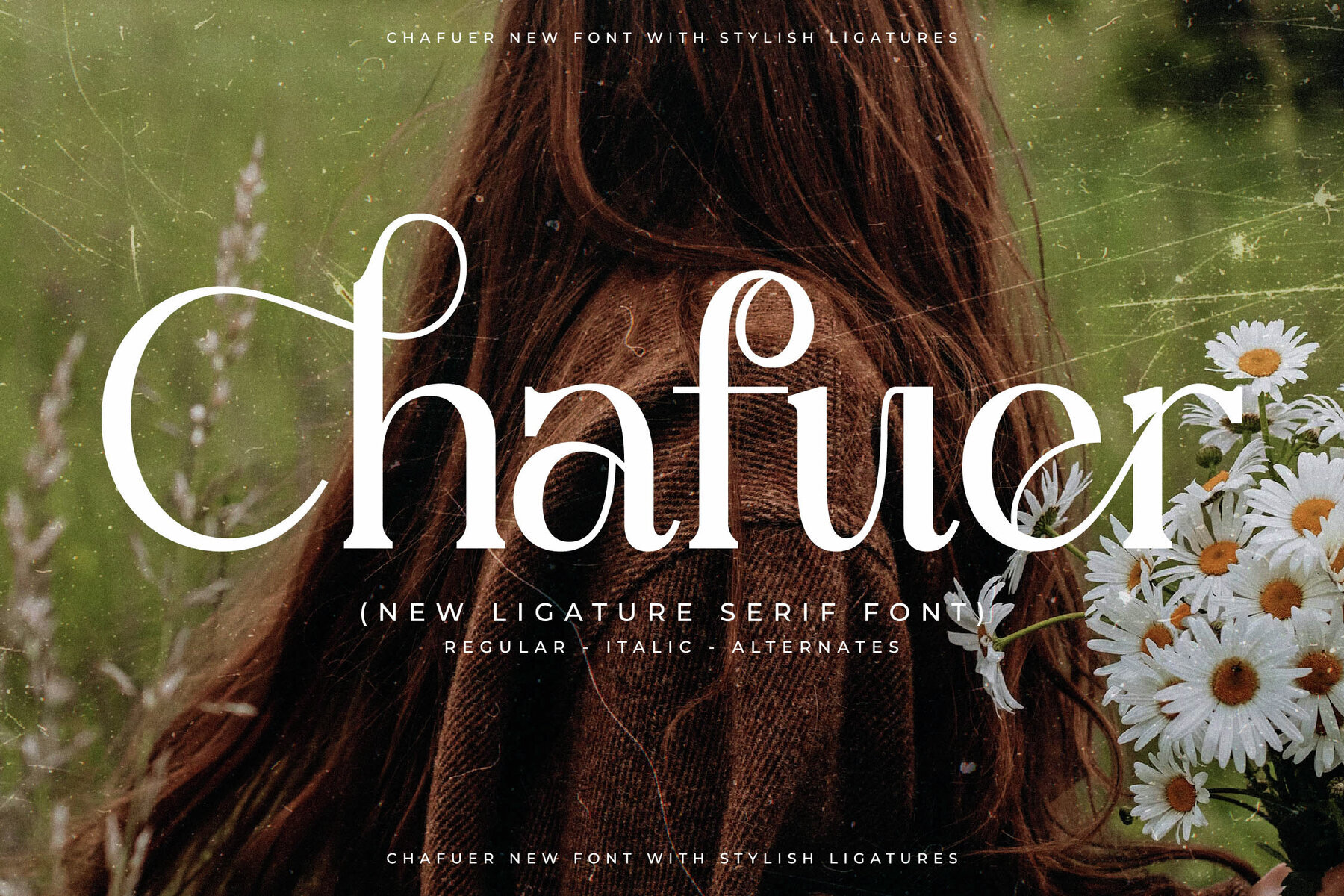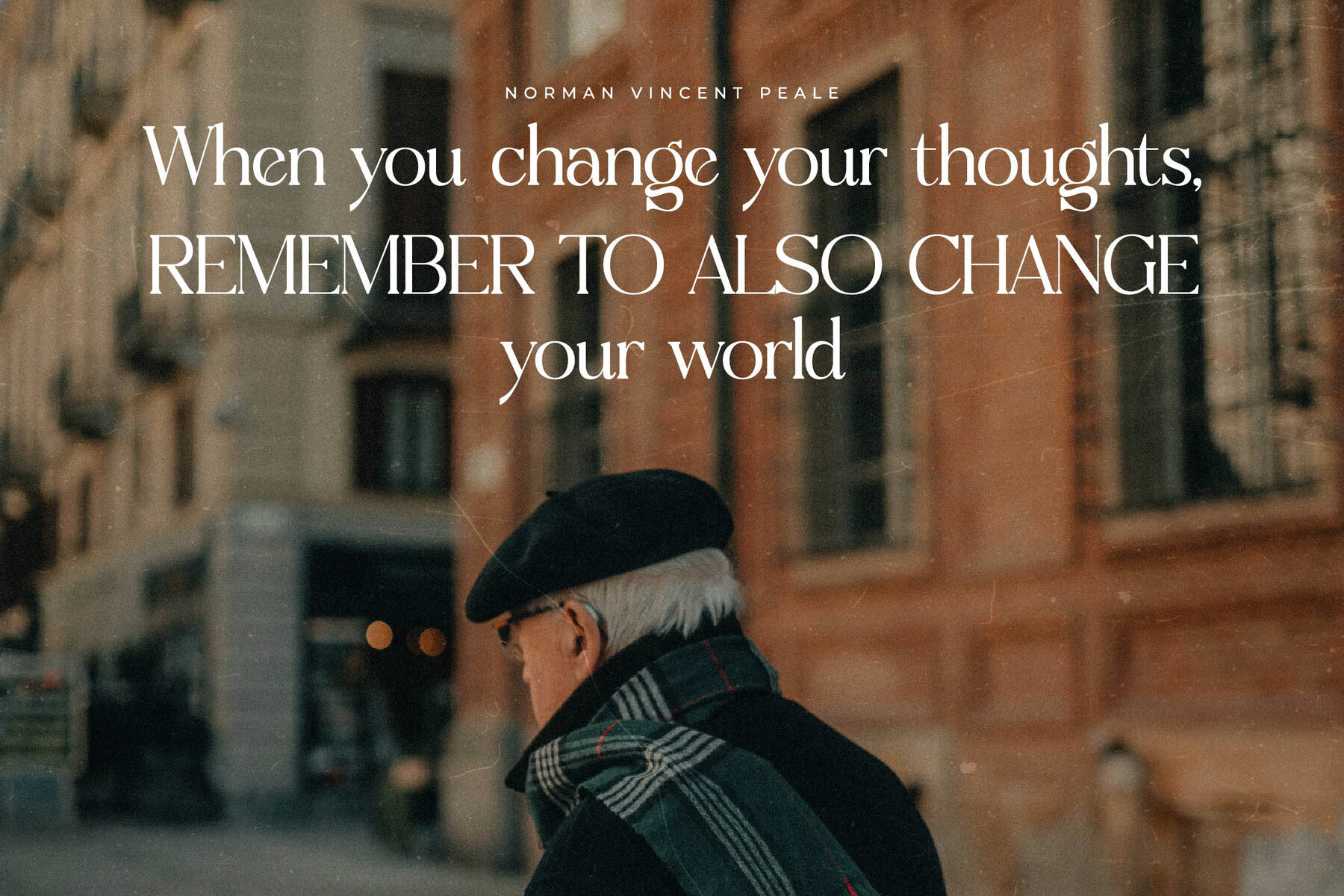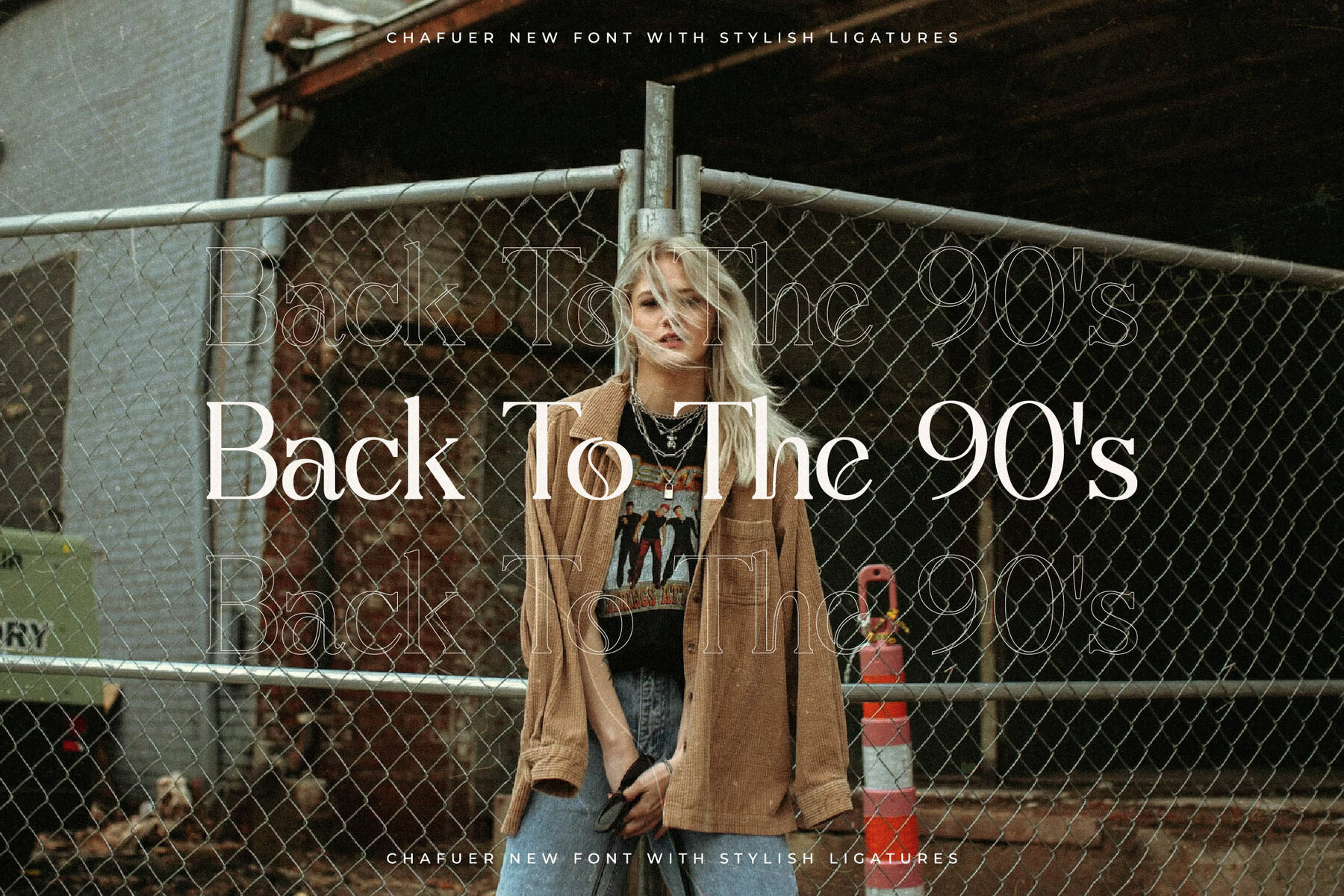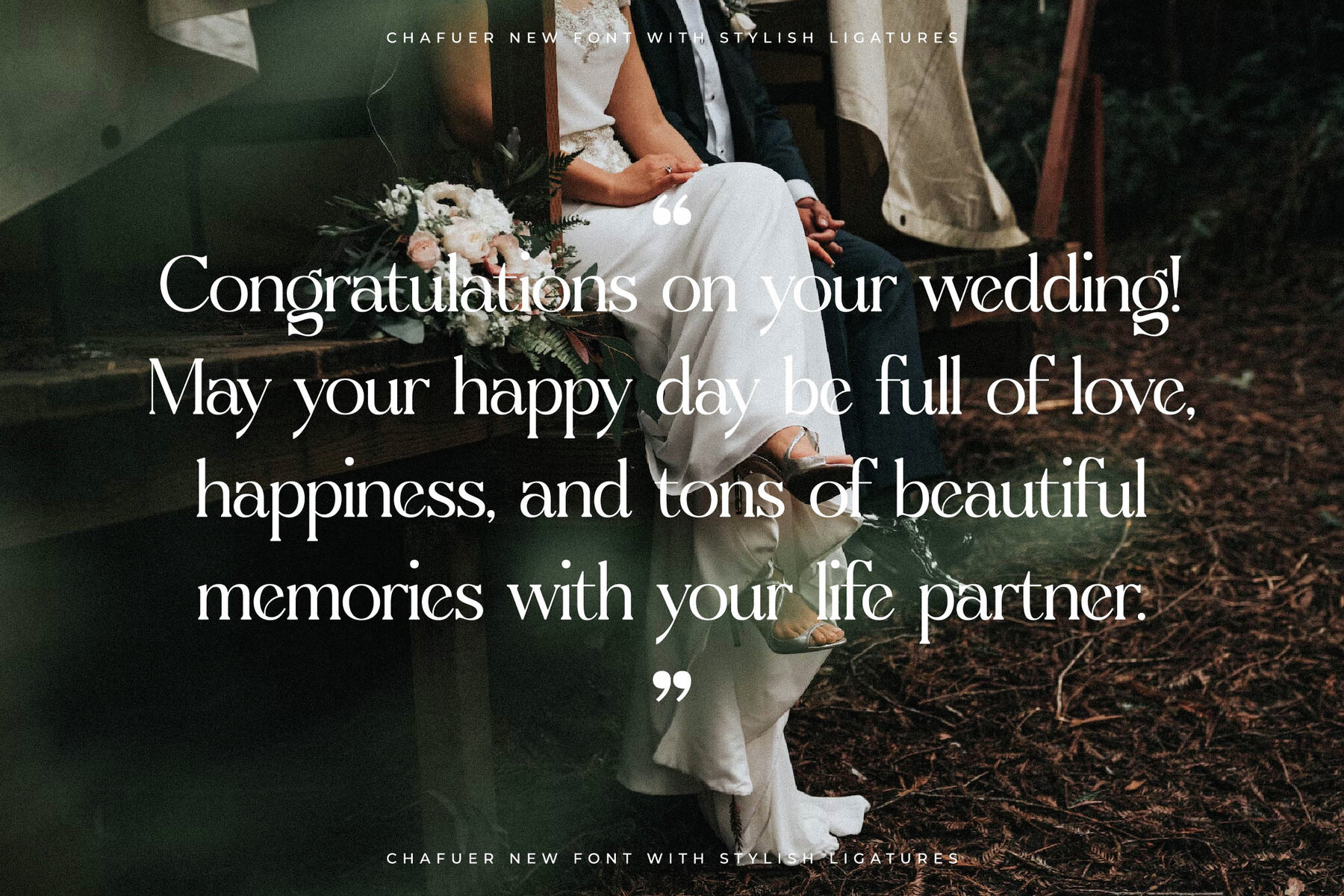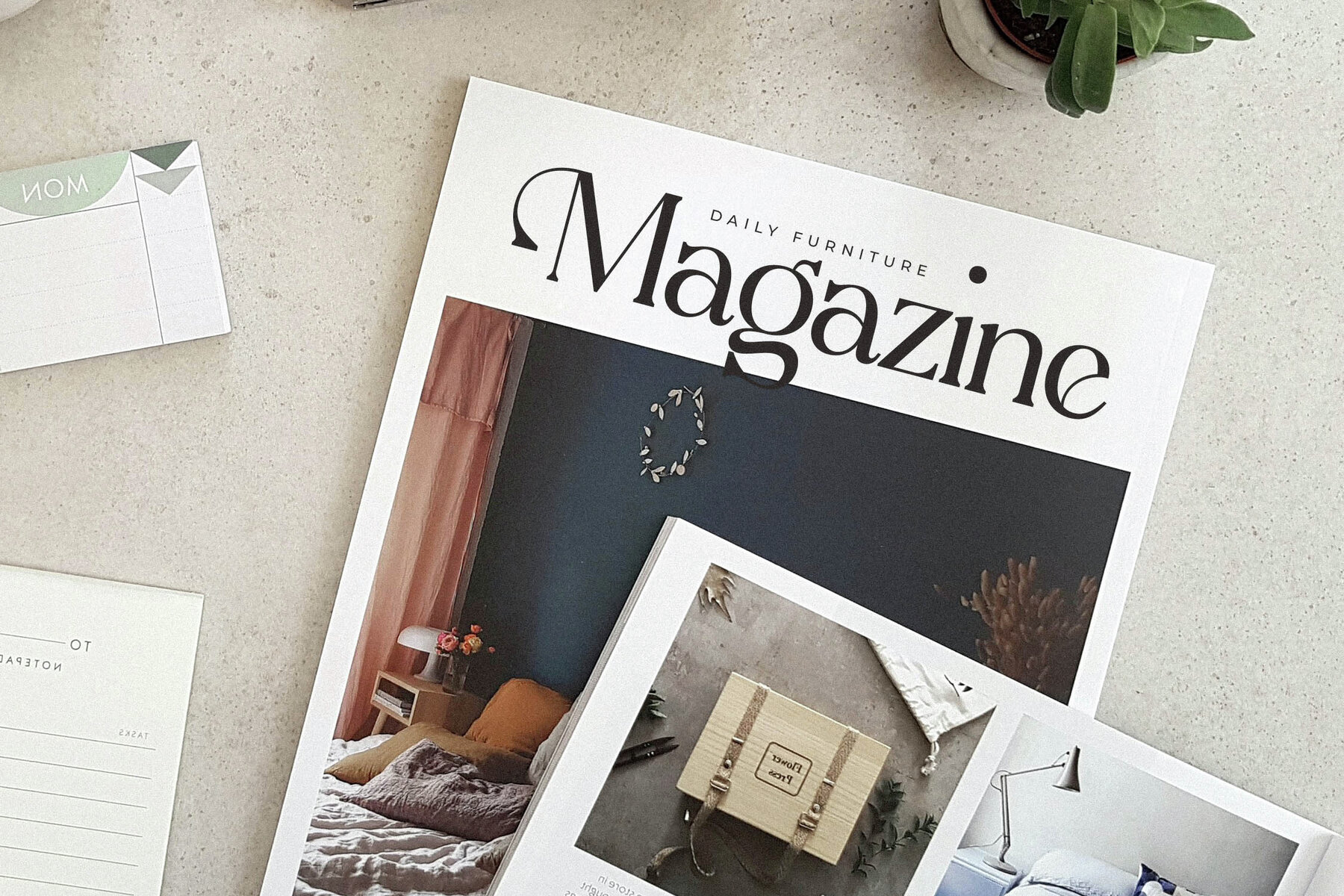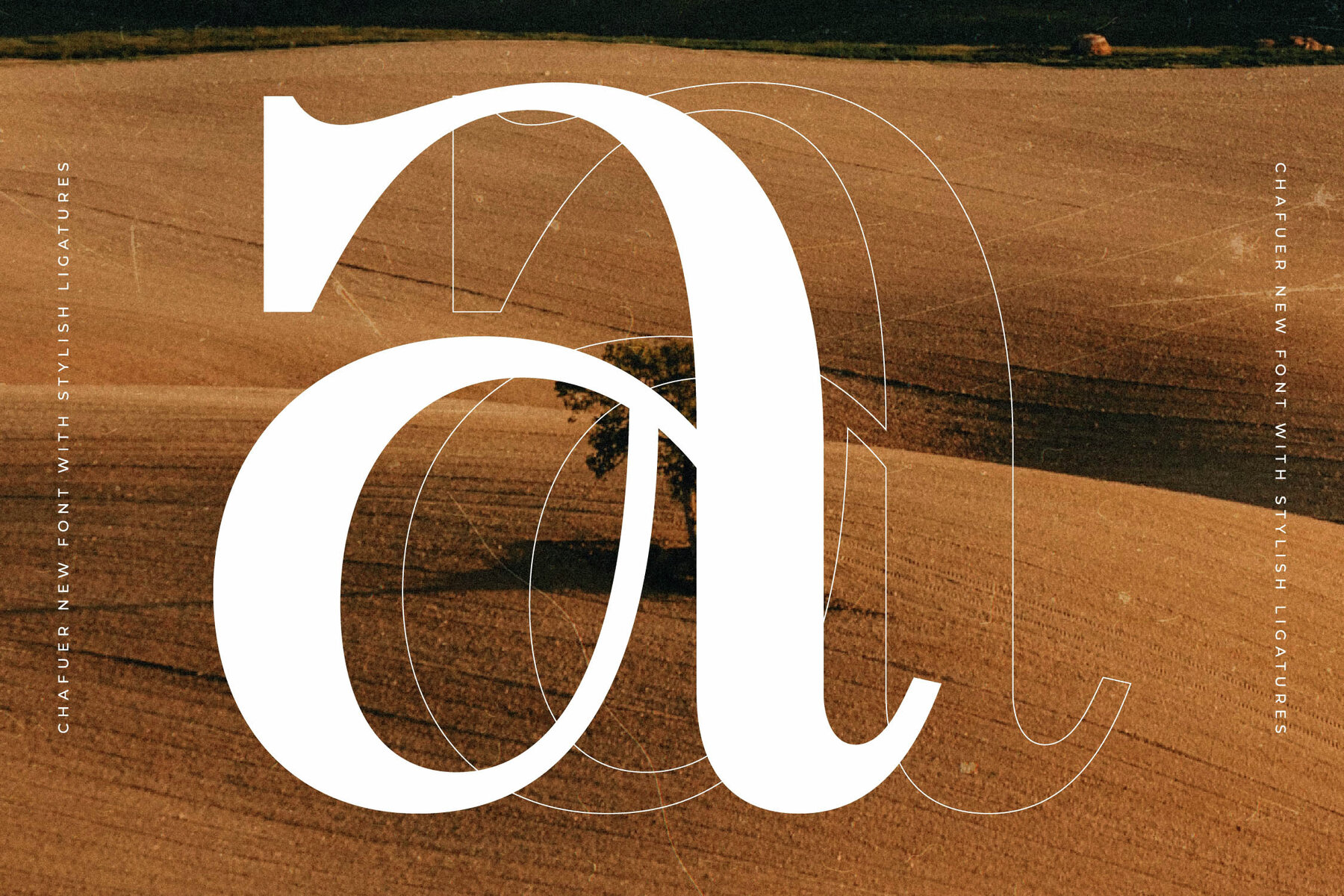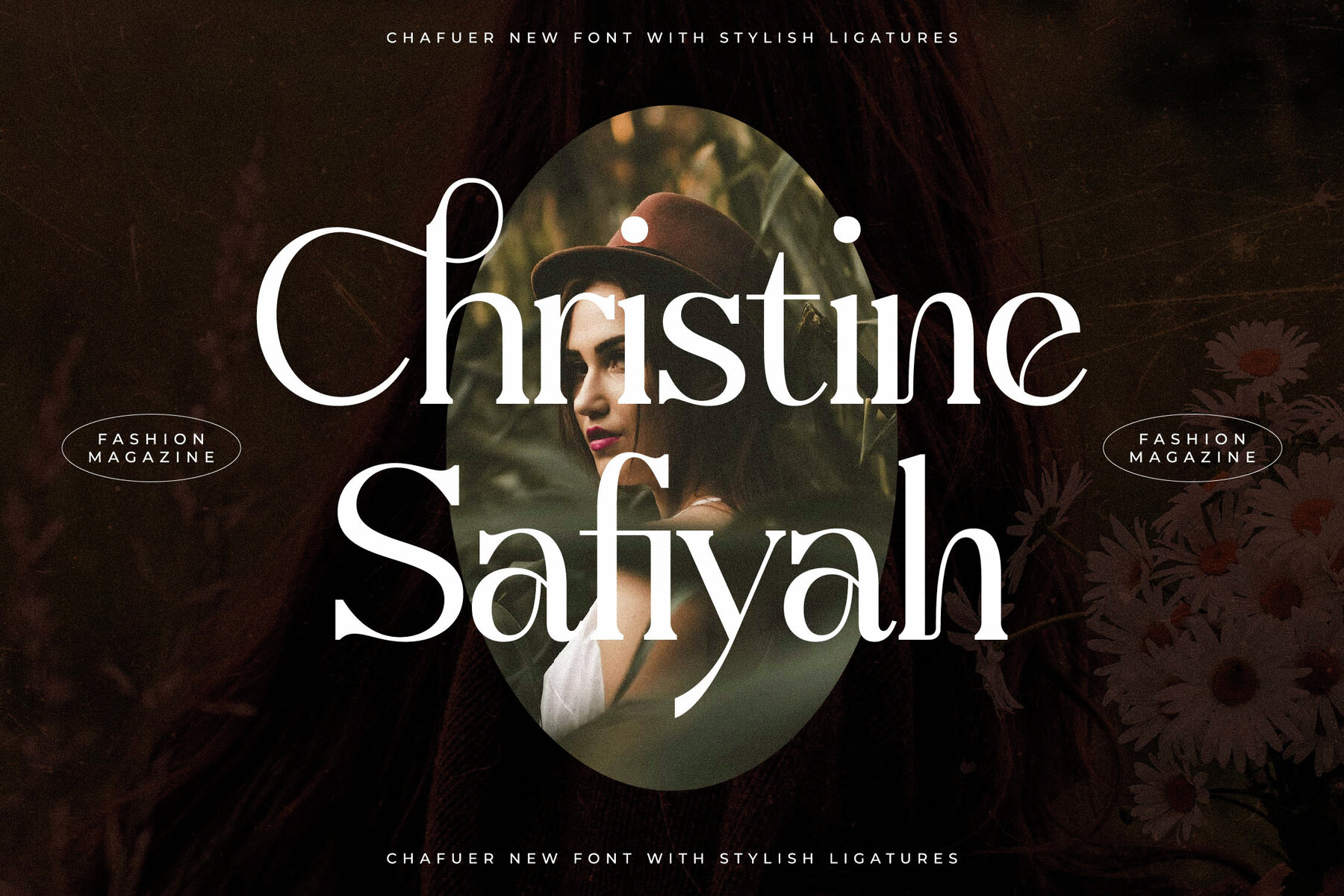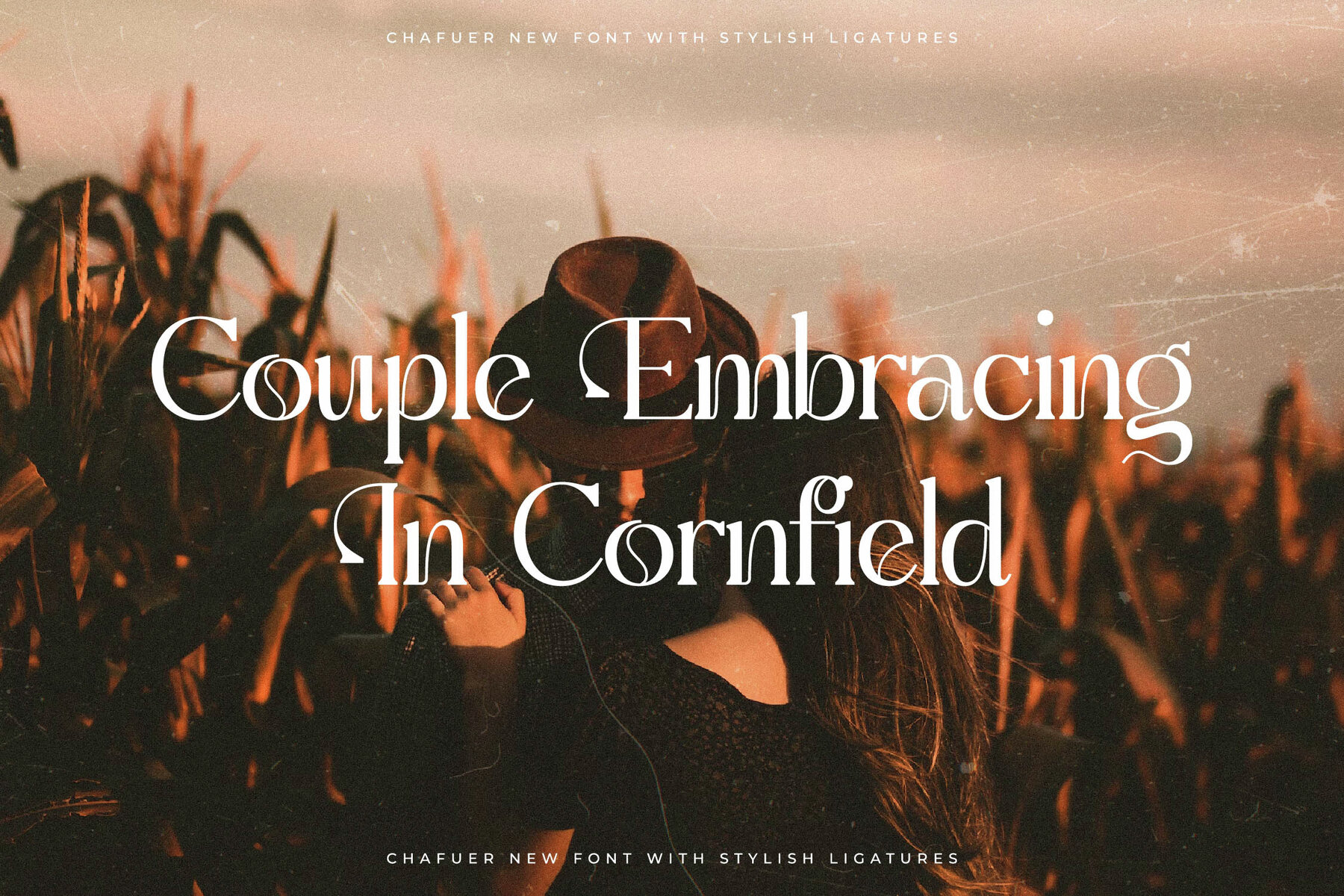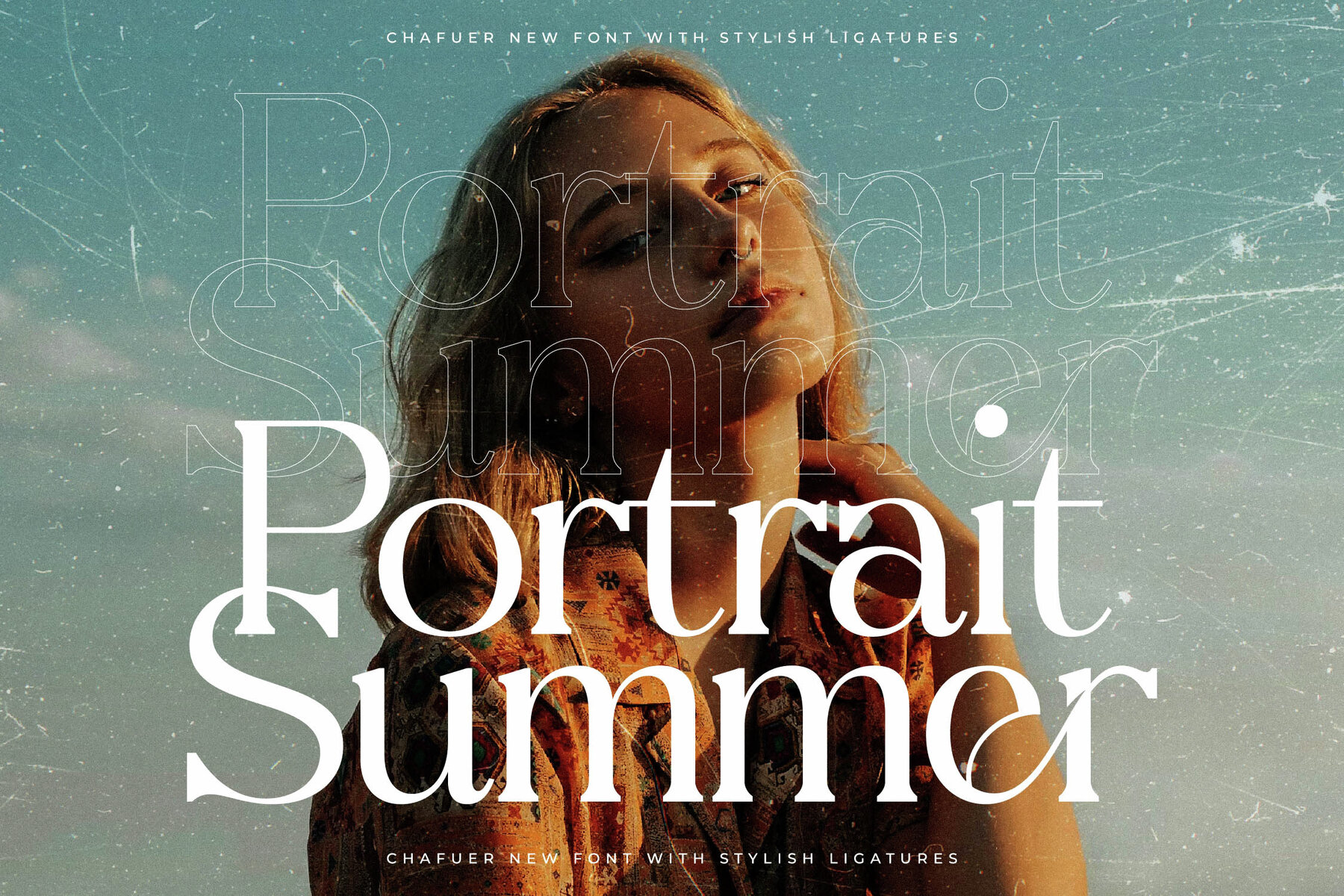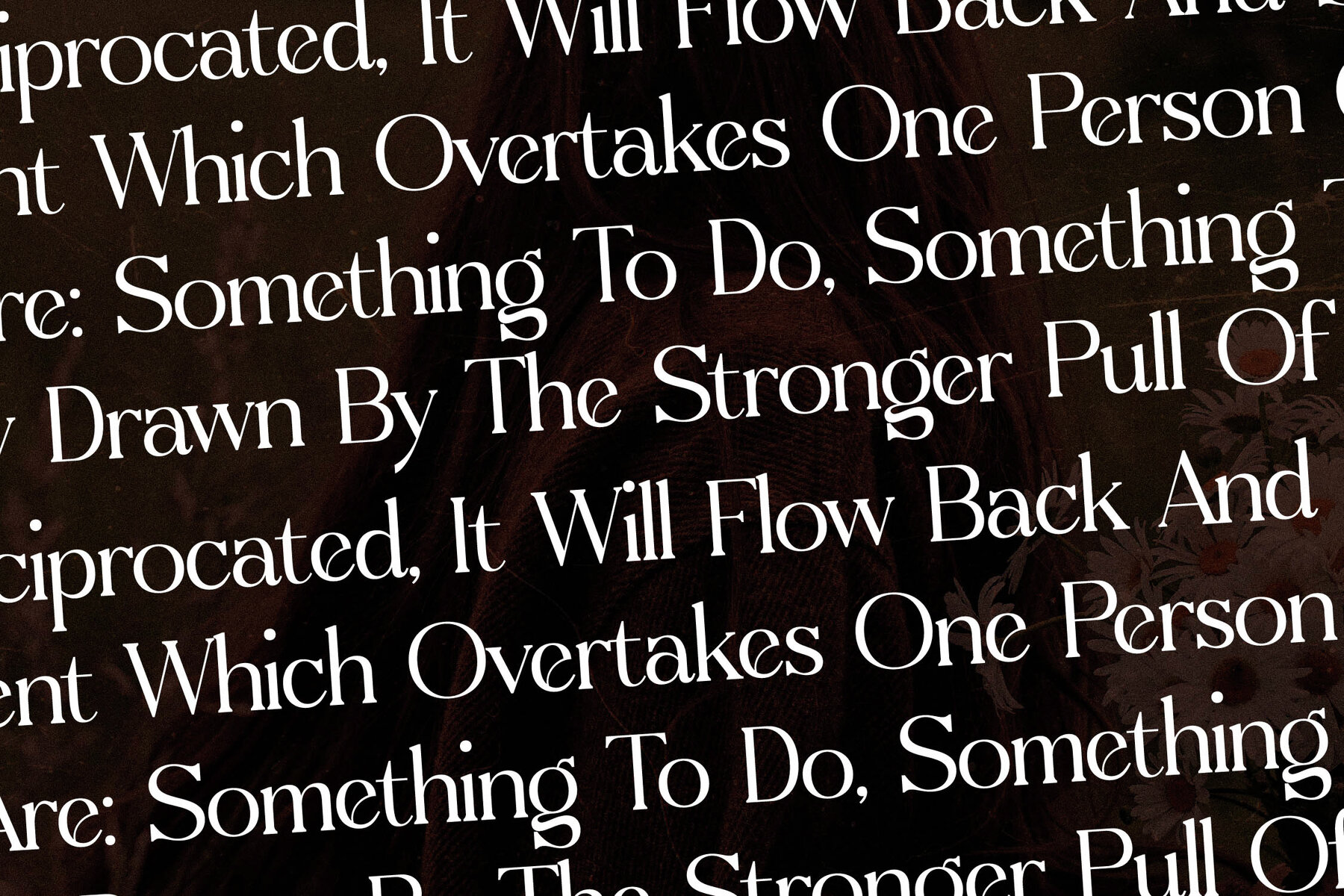
Chafuer Font
Introducing the Chafuer Typeface, crafted with precision by Storytype Studio. This serif font exudes a seamless blend of modern elegance and classic charm, offering a distinct style that elevates any design project. Its sophisticated appearance makes it an ideal choice for creating luxurious logos, captivating book or movie titles, chic fashion brands, stylish magazines, and inspiring quotes.Chafuer Typeface